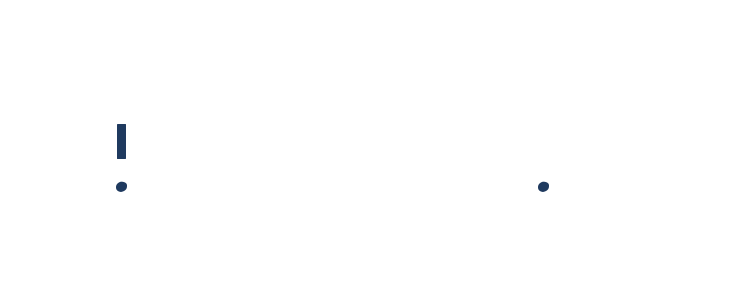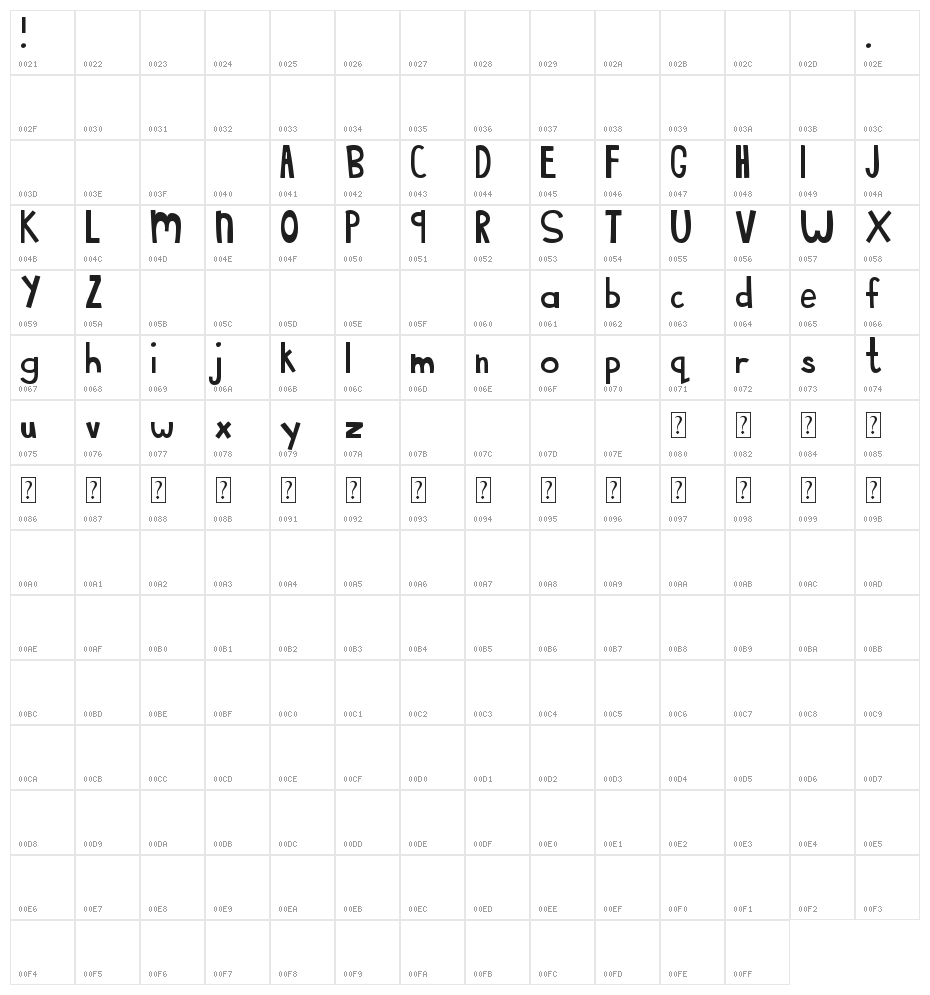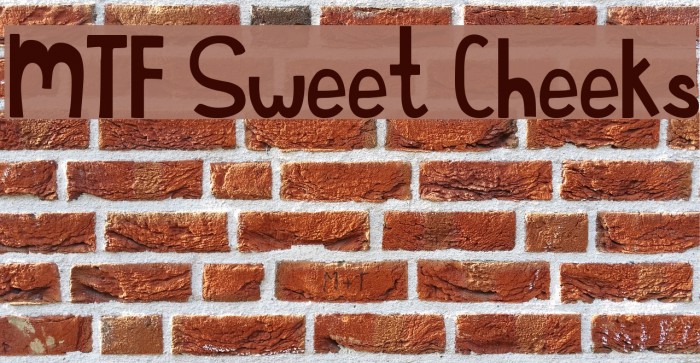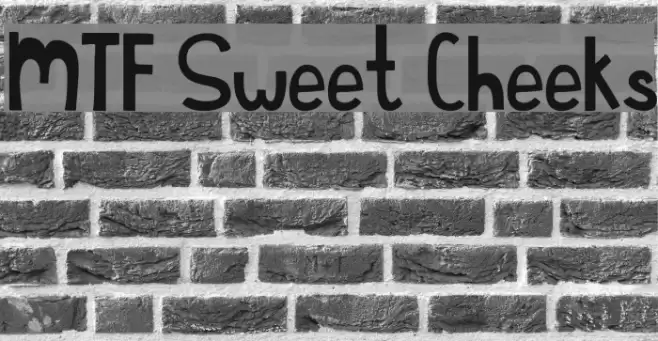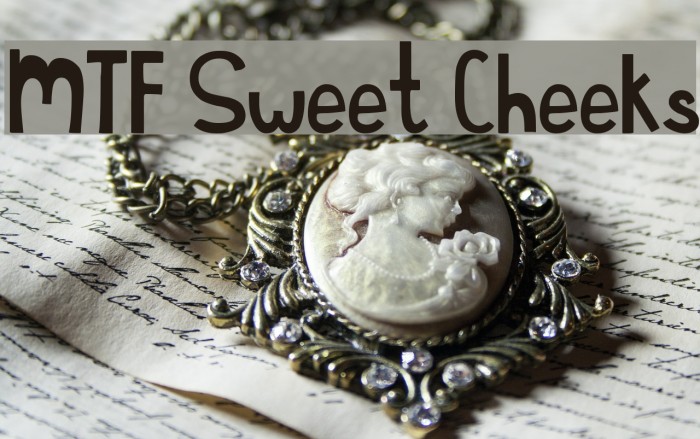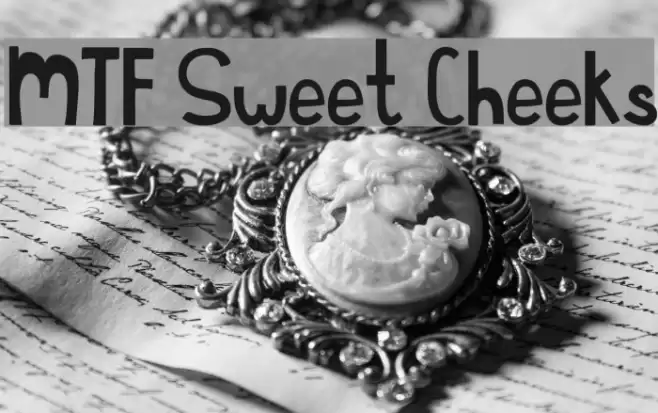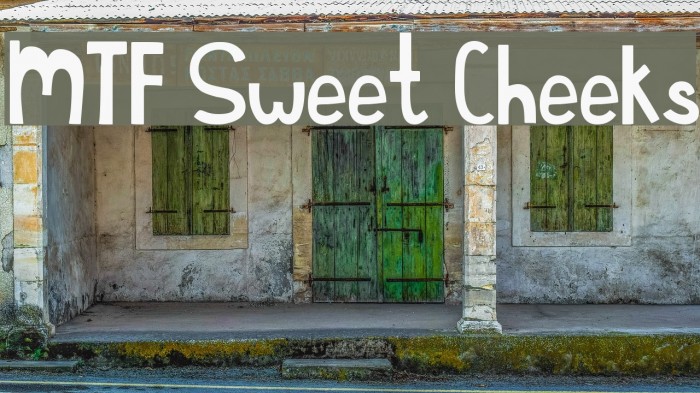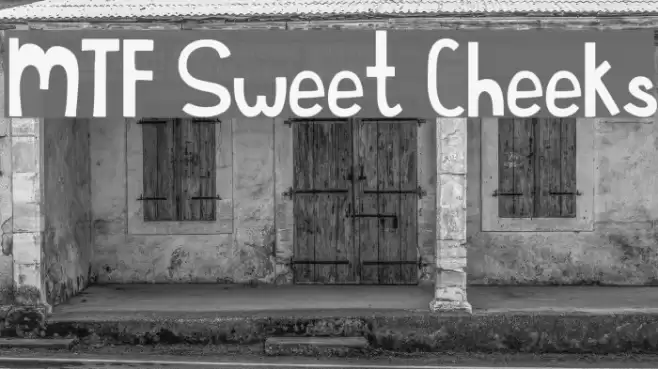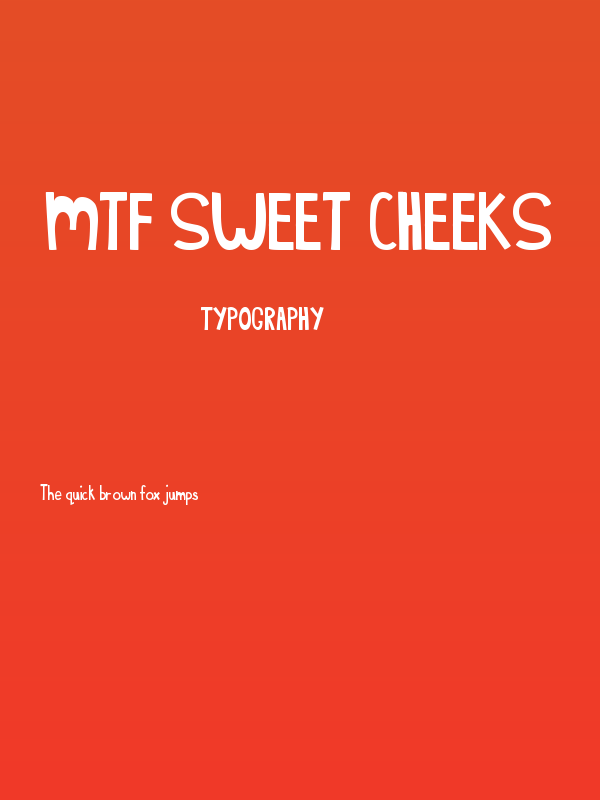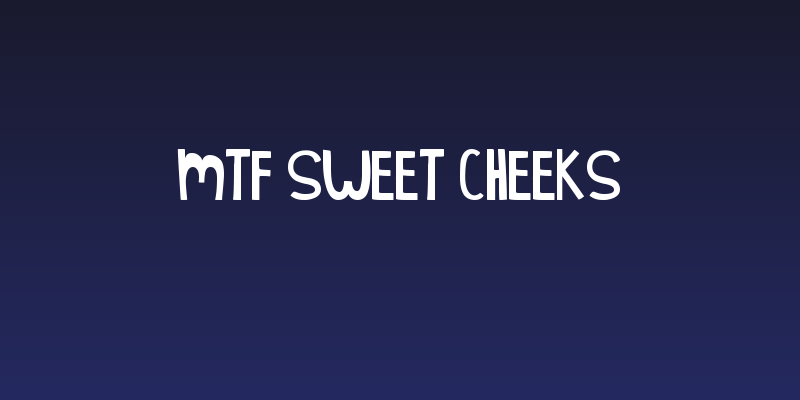
MTF Sweet Cheeks Font
MTF Sweet Cheeks Description
This playful and whimsical font features bold, rounded characters with a slightly irregular baseline, giving it a fun and informal appearance. The uppercase letters are tall and narrow, while the lowercase letters are more rounded and compact, creating a charming contrast. The font's unique style is characterized by its exaggerated curves and playful forms, making it ideal for projects that require a touch of creativity and personality. The overall design is both eye-catching and approachable, perfect for adding a sense of fun to any design.